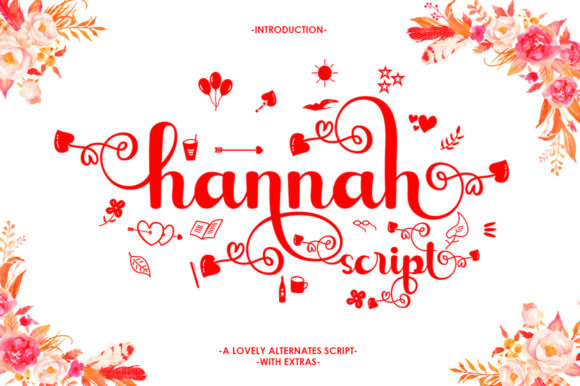
Hannah Script Font: Elevate Your Design with Luxury and Elegance
In the world of typography, fonts play a crucial role in conveying the tone and personality of a design project. Among the numerous fonts available, the Hannah Script Font stands out for its unique feel and stunning impact. This beautiful handwritten font is designed to add a touch of luxury to any design project, making it an excellent choice for creatives and designers. In this article, we’ll explore the features and benefits of the Hannah Script Font and how it can elevate your design projects.
What is Hannah Script Font?
Hannah Script Font is a modern, handwritten font that boasts a distinctive and elegant style. Its unique feel is characterized by flowing lines, beautiful swashes, and a sophisticated aesthetic that exudes luxury and refinement. This font is perfect for designers who want to add a touch of elegance and sophistication to their projects.
Key Features of Hannah Script Font
- Unique Feel: Hannah Script Font has a one-of-a-kind style that sets it apart from other fonts.
- Stunning Impact: The font’s elegant and refined aesthetic makes it perfect for high-end design projects.
- PUA Encoded: The font is PUA (Private Use Area) encoded, which means you can access all the amazing glyphs and ligatures with ease.
- Handwritten Style: The font has a beautiful, handwritten style that adds a personal touch to any design project.
The Benefits of Using Hannah Script Font
The Hannah Script Font offers several benefits that make it an excellent choice for designers and creatives. Some of the advantages of using this font include:
Elevate Your Design Projects
Hannah Script Font can add a touch of luxury and sophistication to any design project. Whether you’re working on a branding project, a website design, or a marketing campaign, this font can help you create a lasting impression.
Stand Out from the Crowd
With its unique feel and stunning impact, Hannah Script Font can help you stand out from the crowd. This font is perfect for designers who want to create a distinctive and memorable brand identity.
Easy to Use
Hannah Script Font is PUA encoded, which makes it easy to access all the glyphs and ligatures. This means you can focus on designing without worrying about complicated font management.
Tips and Tricks for Using Hannah Script Font
Here are some tips and tricks to help you get the most out of Hannah Script Font:
Pair it with Other Fonts
Hannah Script Font can be paired with other fonts to create a unique and visually appealing design. Experiment with different font combinations to find the perfect match.
Use it for Headings and Titles
Hannah Script Font is perfect for headings and titles. Use it to add a touch of luxury and sophistication to your design projects.
Experiment with Colors and Textures
Don’t be afraid to experiment with different colors and textures when using Hannah Script Font. This can help you create a unique and eye-catching design.
In conclusion, Hannah Script Font is a beautiful handwritten font that can add a touch of luxury and sophistication to any design project. Its unique feel and stunning impact make it perfect for designers who want to create a lasting impression. With its PUA encoding, this font is easy to use and accessible. Whether you’re working on a branding project, a website design, or a marketing campaign, Hannah Script Font is an excellent choice.